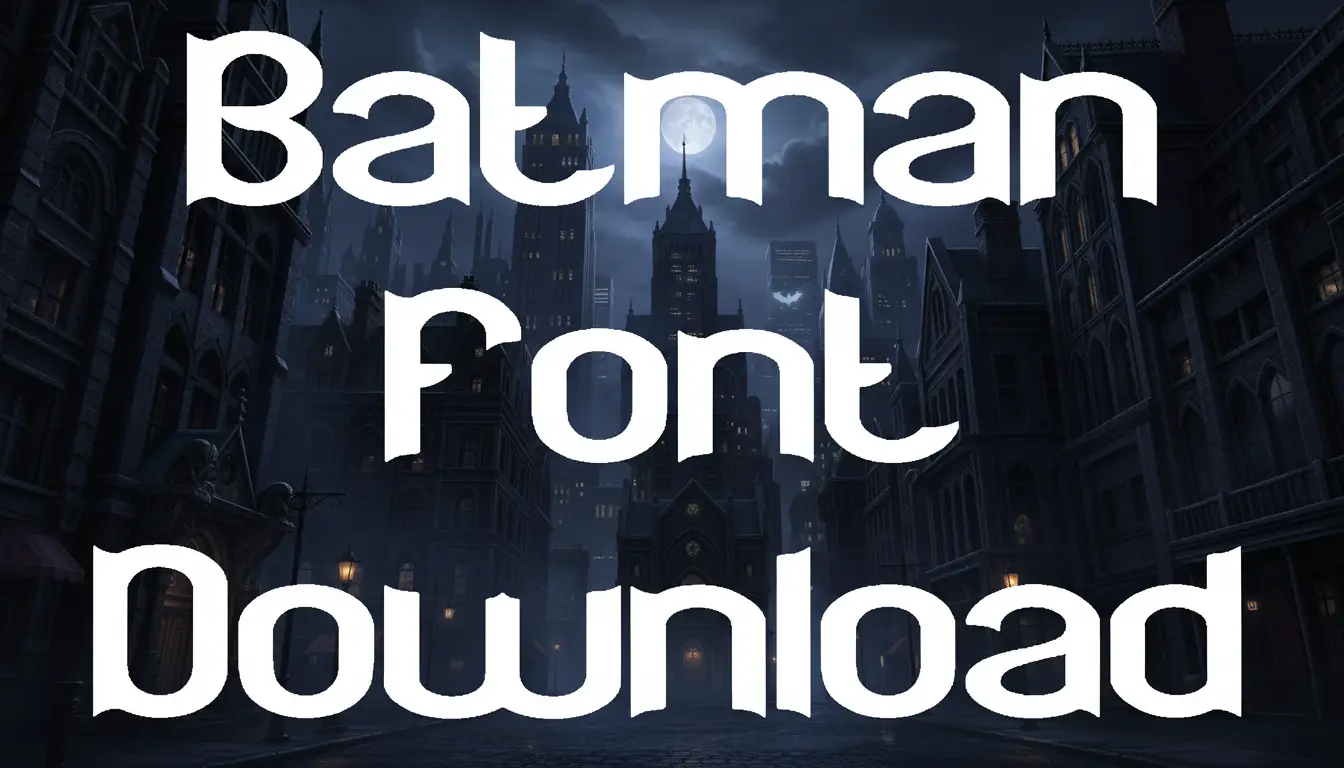
Batman Font
Batman Font Preview
What You Can Type With Batman
Batman covers the full alphabet in upper and lowercase, plus all ten numbers, so you can set names, dates and prices without switching fonts. Everyday marks like &, !, ? and @ are there too. Thanks to its accented letters, it also works for Spanish, French, German, Portuguese and Italian, not just English. On top of that, it includes Greek and Cyrillic characters.
Where Batman Works Best
Think of Batman for posters, logos and eye-catching headlines. Use it for one standout word or headline and let simpler fonts handle the rest.
Does Batman support accented letters?
Yes. Batman includes the accented letters needed for Spanish, French, German, Portuguese and Italian, so it works for more than just English.